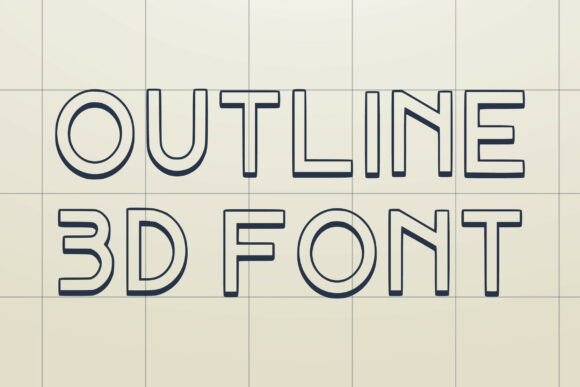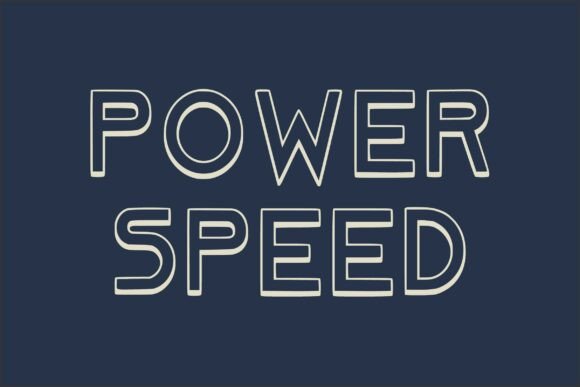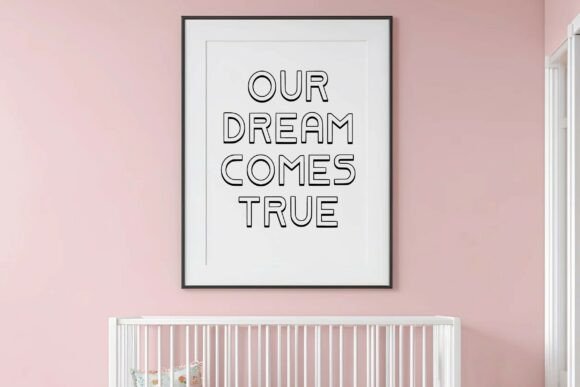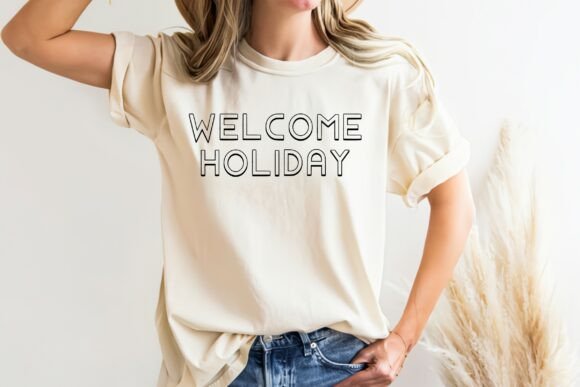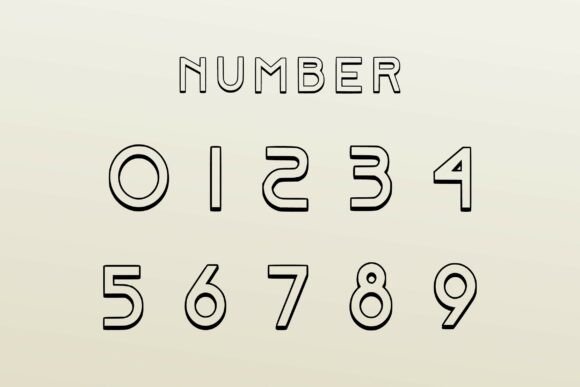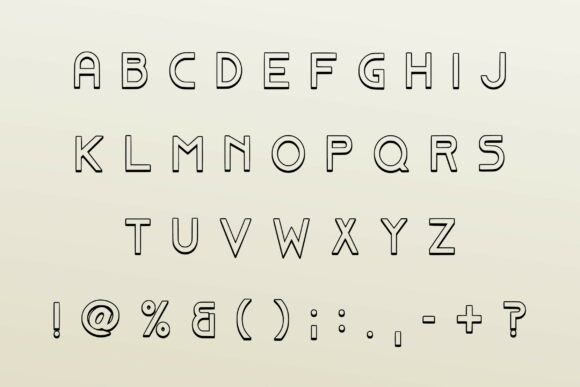
Introduction to Sans Project Font Font
Fonts play a crucial role in design, and the Sans Project Font font is a typeface that brings both character and versatility to any project. Whether you’re working on a branding project, a website, or a print design, the Sans Project Font font offers a unique style that can elevate your work.
Sans Project is a simple and versatile font designed to inspire creativity and make learning English letters fun for children.
With clean, easy-to-recognize shapes, this font encourages kids to use their imagination while mastering letter formation and recognition Its open-ended design is perfect for various activities like coloring, painting, gluing, cutting, and collage making.
The Sans Project Font font is more than just a typeface – it’s a design tool that helps you communicate your message with style and clarity. Its unique character set and versatile design make it suitable for a wide range of applications, from elegant invitations to bold headlines.
With its carefully crafted letterforms and balanced proportions, the Sans Project Font font ensures readability and visual appeal across all mediums.
What makes Sans Project Font font special?
The Sans Project Font font stands out with its unique design, exceptional readability, and versatility across various design applications.